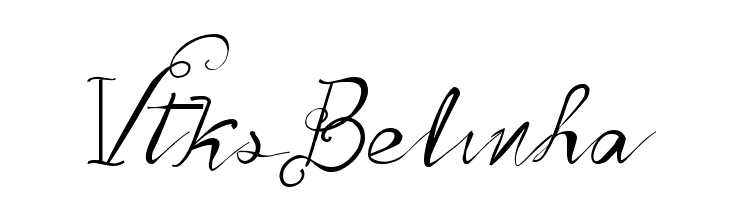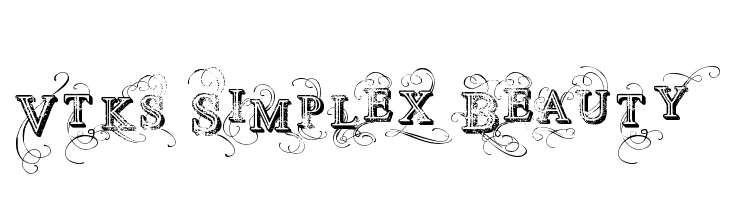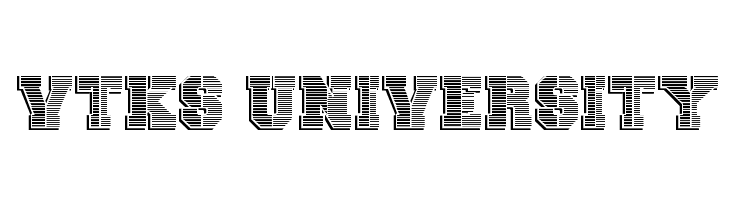
An ornate, decorative font with elegant flourishes and calligraphic elements.
A grungy, distressed font with a splattered ink effect and irregular strokes.
A bold, distressed font with a grunge texture and rugged appearance.
A bold, decorative font with a vintage, three-dimensional style.
An ornate, decorative font with distressed textures and elaborate flourishes.
A bold, decorative font with intricate detailing and a vintage flair.
A bold, distressed font with a grunge and textured style.
A bold, decorative font with horizontal stripes and boxed special characters.
An elegant script font with ornate swirls and calligraphic style.
A grungy, distressed font with a raw, edgy appearance and uneven, textured edges.